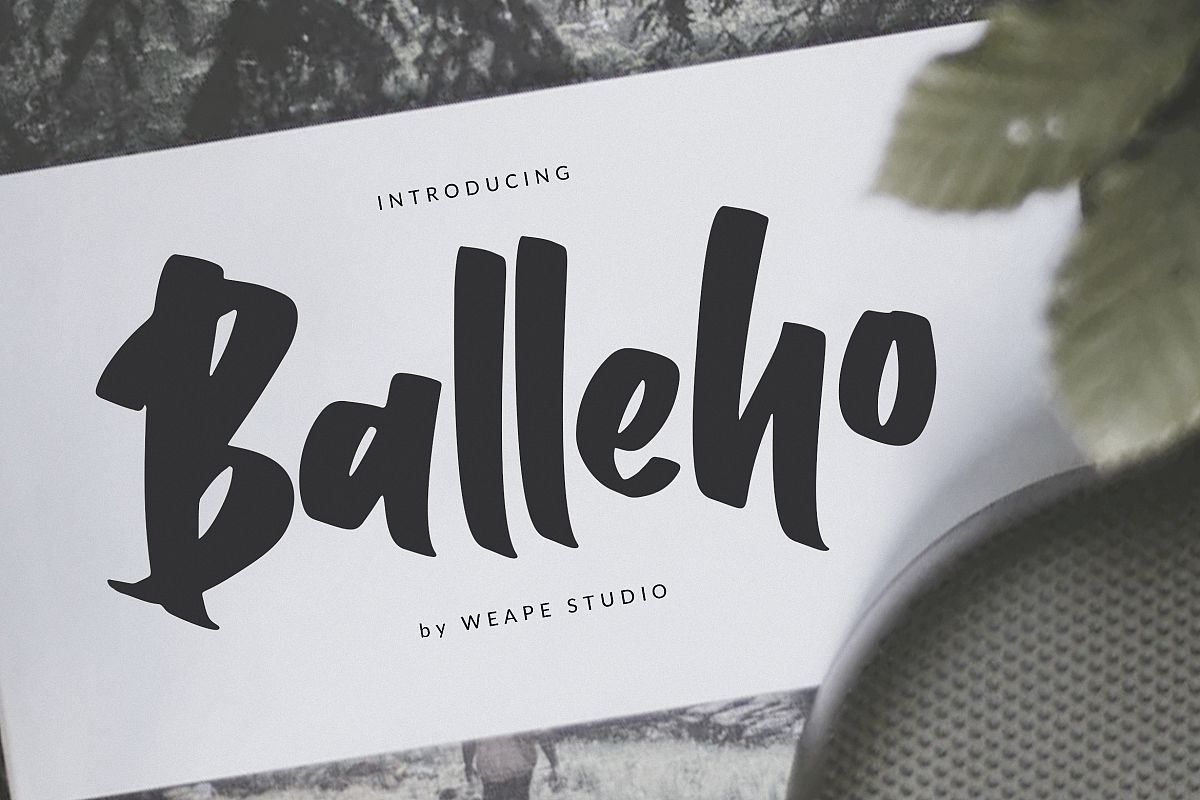
Balleho
Balleho, font with unique strokes makes it beautiful and looks natural as written by hand. The font will make your design more beautiful and cool.
Balleho is perfect for branding, fashion, signature, photography title, poster, social media, music album, book cover, packaging, handwritten quotes, greeting cards, and advertising.